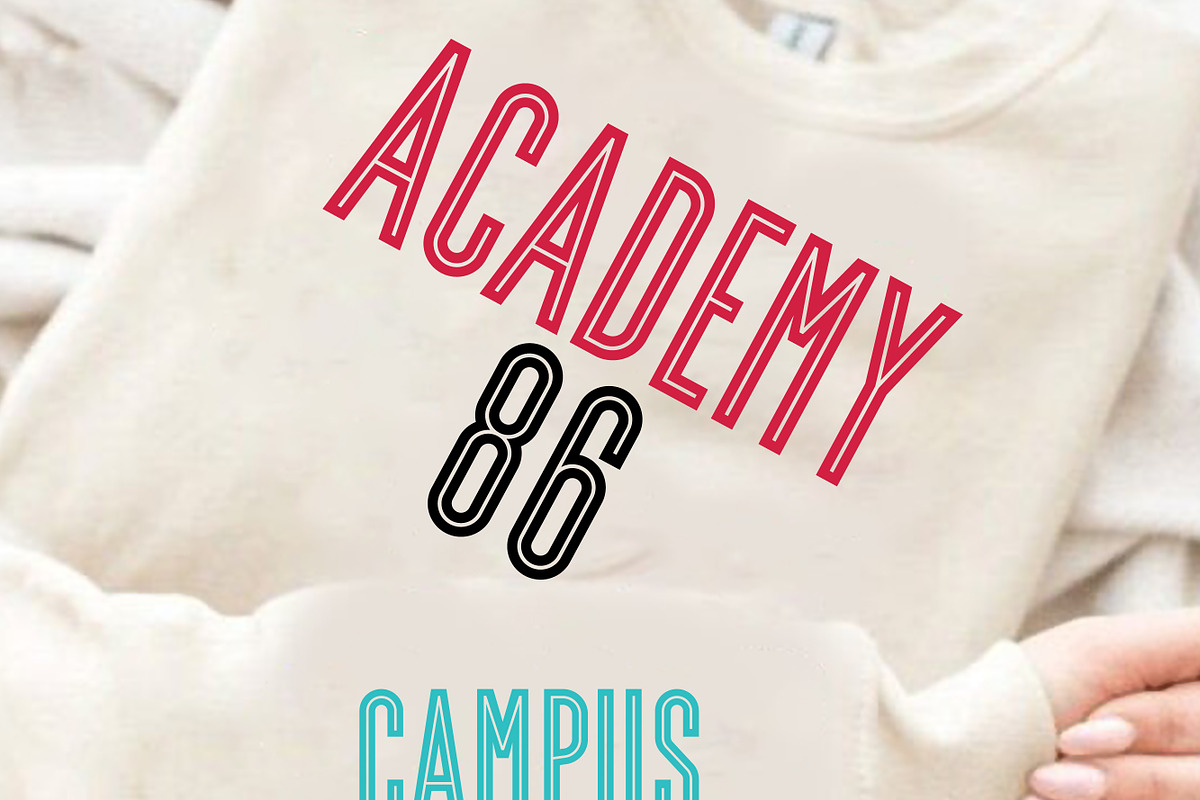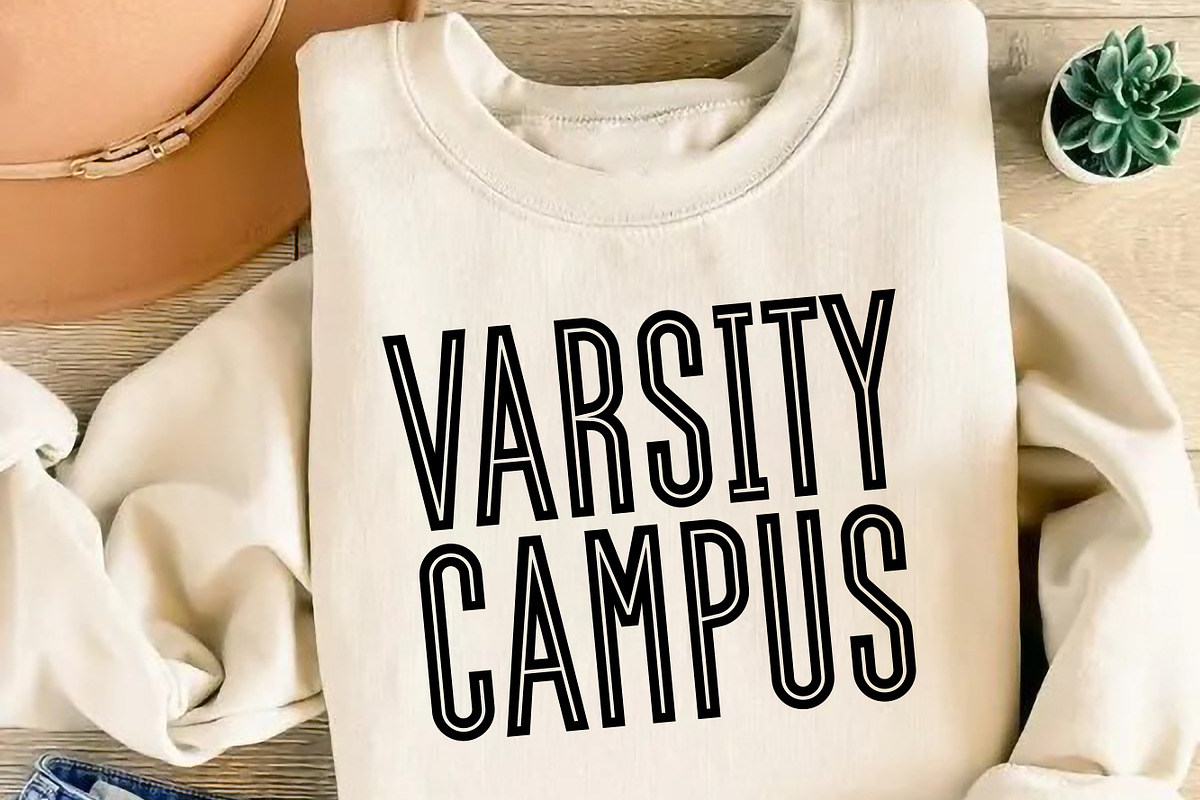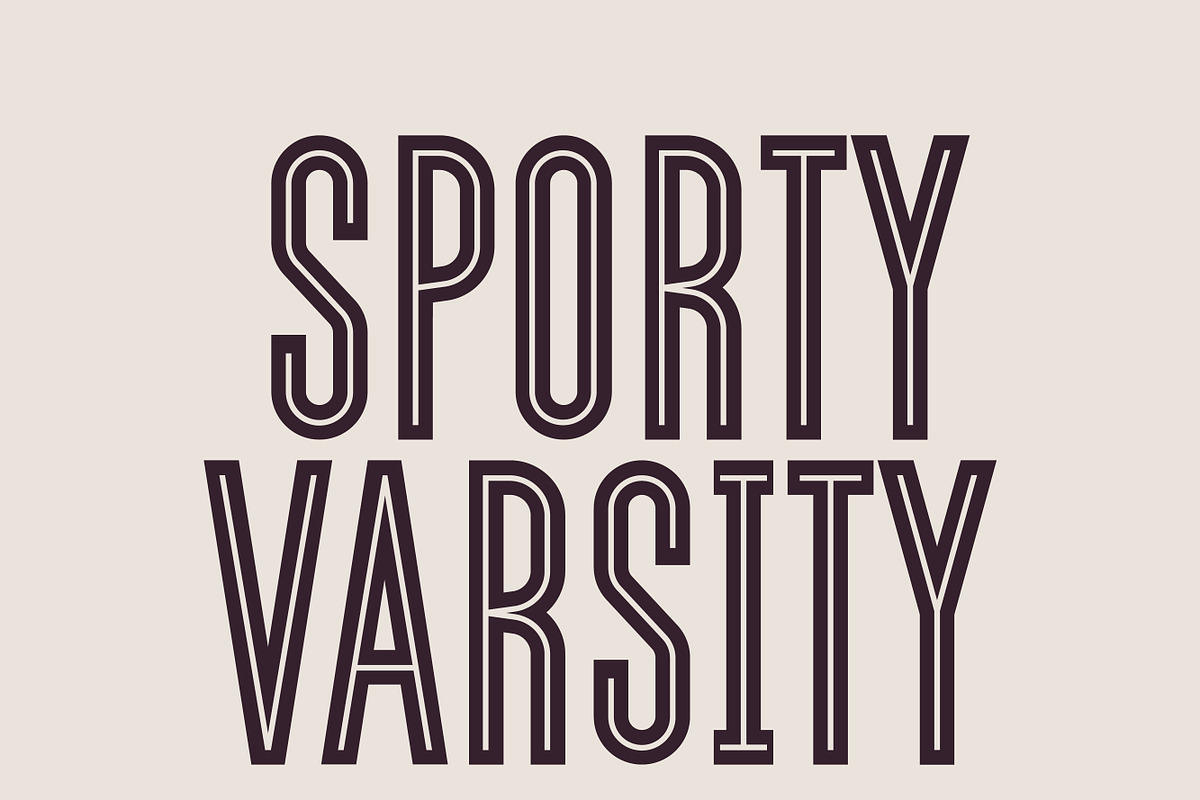
Sporty Varsity - Sans Varsity
Sporty Varsity is a clean and bold sans serif font with a sporty, varsity-inspired style. Its simple, outlined letters give it a strong, athletic look, perfect for designs that need an energetic, team-like feel. Great for logos, posters, and school spirit graphics!